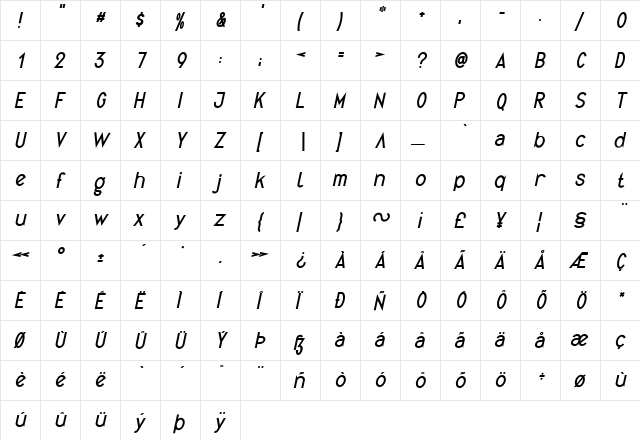
Quirkus Italic
Design Context for Quirkus Typeface
Quirkus is a composed and adaptable typeface that performs quietly and consistently across a wide range of design contexts. The slanted form adds forward momentum and visual energy.
Pro Tip: Try Quirkus for annotation and caption copy alongside an upright companion — the contrast in angle creates a dynamic but ordered typographic system.